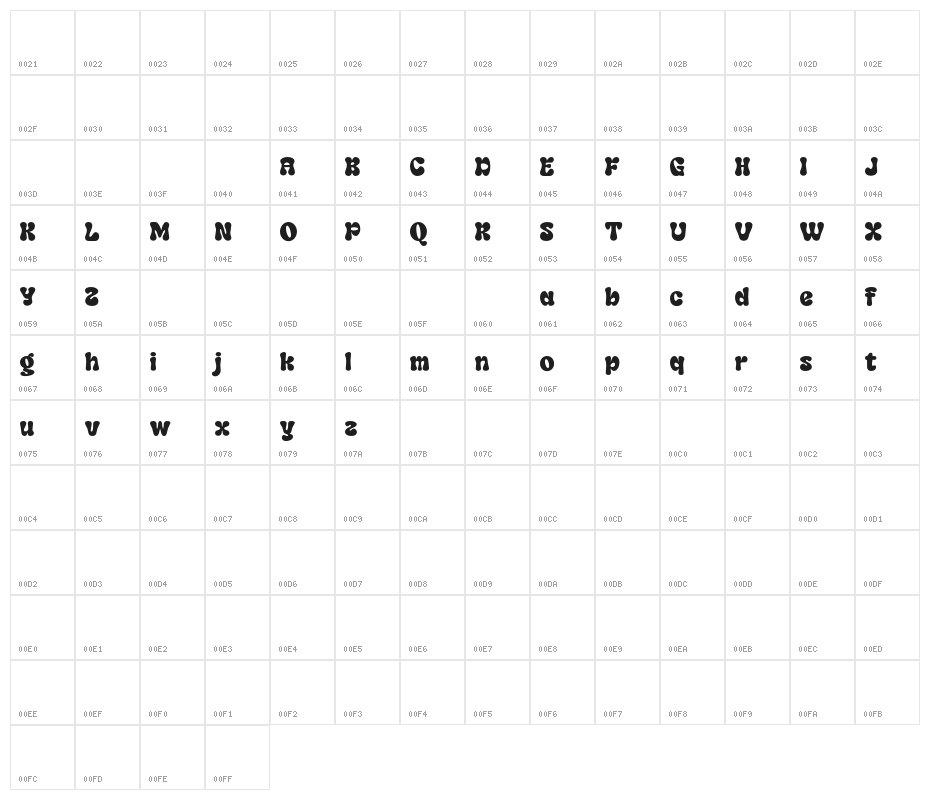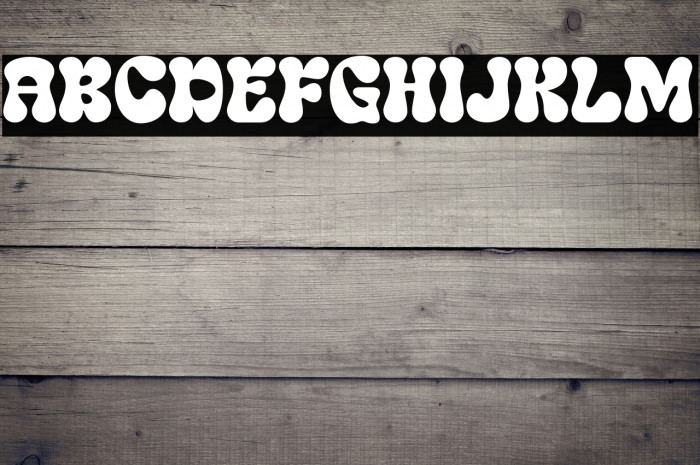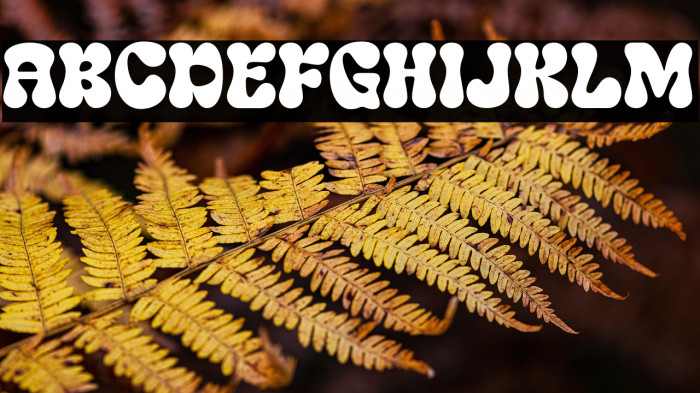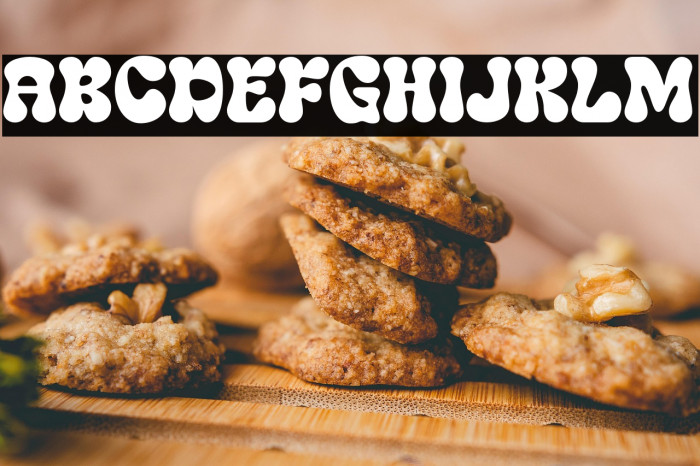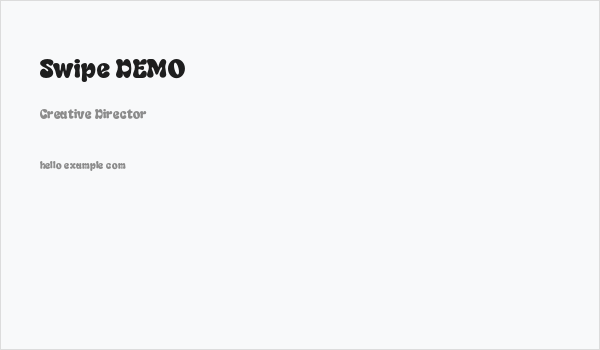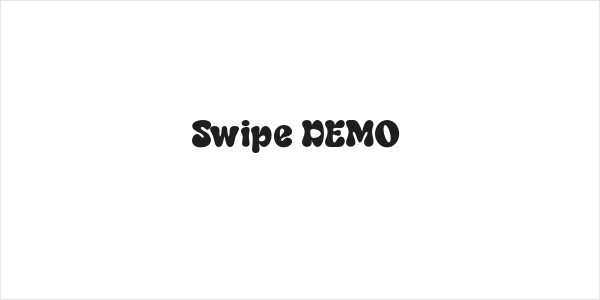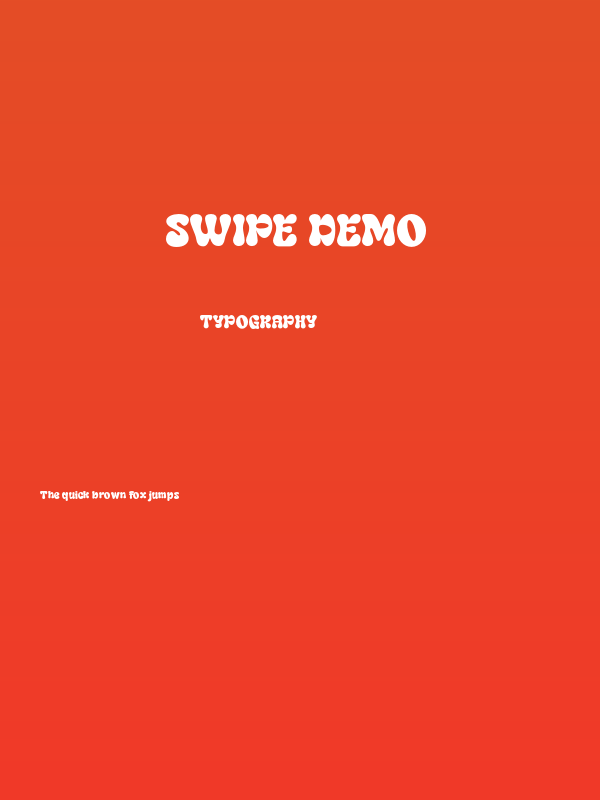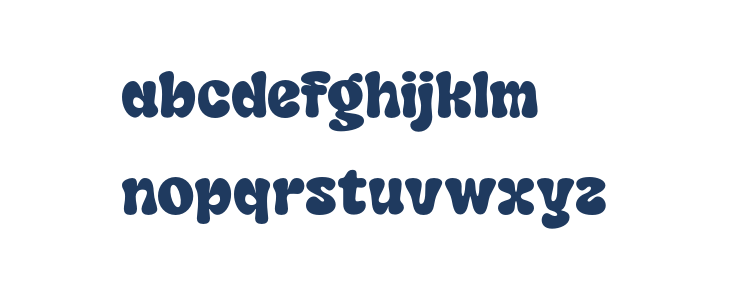
Swipe DEMO Font
Swipe DEMO Description
This font features a bold and playful design with rounded, bubble-like characters that exude a sense of fun and whimsy. The letters are thick and have a consistent weight throughout, giving them a strong presence on the page. The rounded edges and smooth curves create a friendly and approachable aesthetic, making it ideal for projects that aim to convey a lighthearted or informal tone. The font maintains a uniform width across all characters, ensuring a balanced and cohesive appearance. Its unique style makes it stand out, perfect for creative and artistic applications.
| Overall Style | Playful, Fun |
| Use Case | Logos, Posters, Headlines |